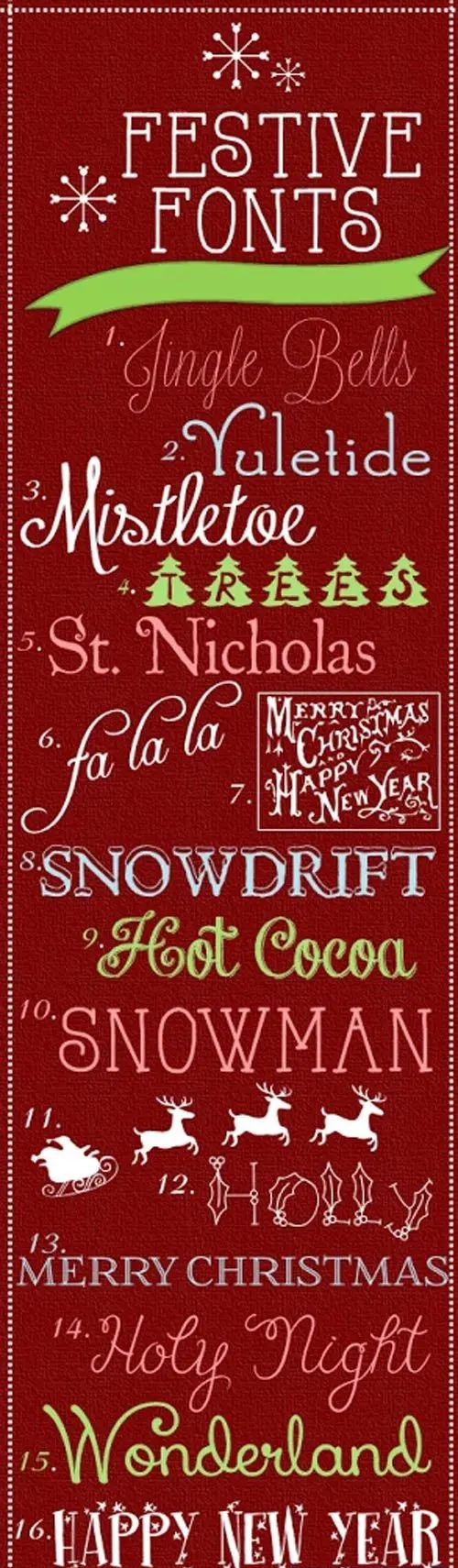
Elevate your holiday projects with our 16 Fabulous Festive Holiday Fonts Pack. This carefully curated collection features a variety of font styles that embody the spirit of the season, perfect for all your festive designs.
- 16 unique holiday-themed fonts
- Multiple weights and styles for flexibility
- Ideal for branding, logos, invitations, and more
Utilize these fonts for creating eye-catching holiday cards, promotional materials, or festive social media graphics. Their unique styles will add a cheerful touch to any project.